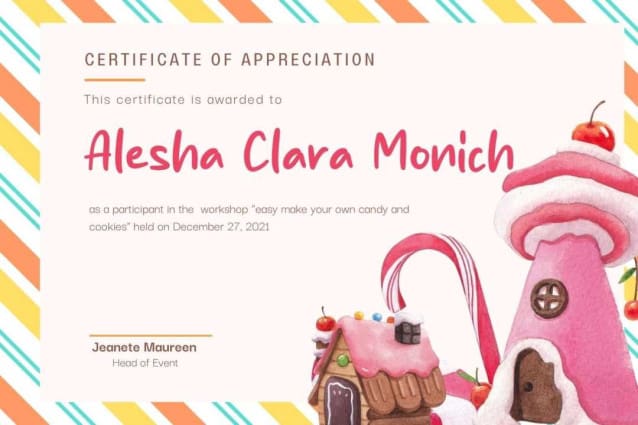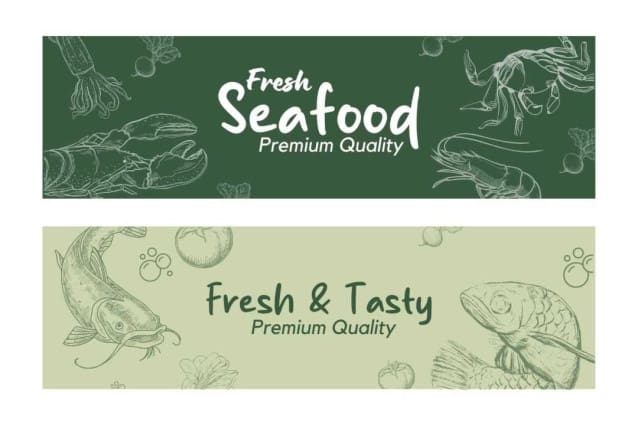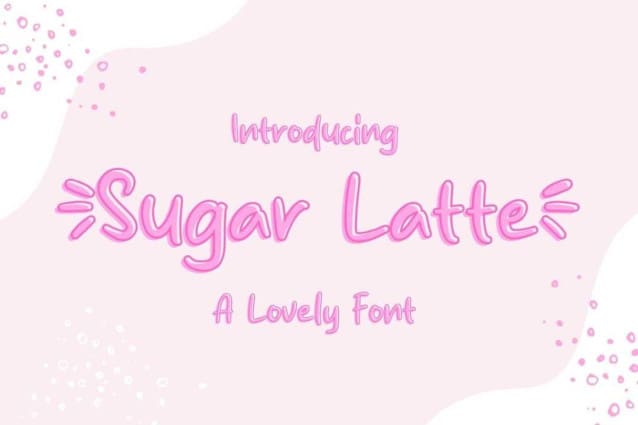
Sugar Latte Font
Sugar Latte Font is a unique handwritten font that brings a modern ambiance to each word. It can be used in any work such as book covers, music covers, children’s books, posters, advertisements, social media content, logos, and many more!